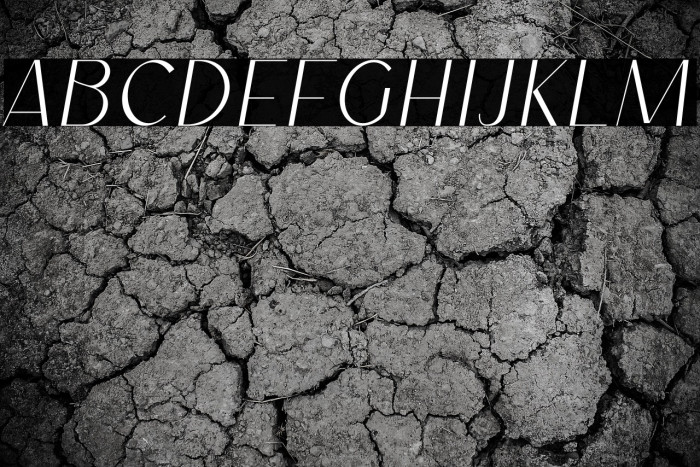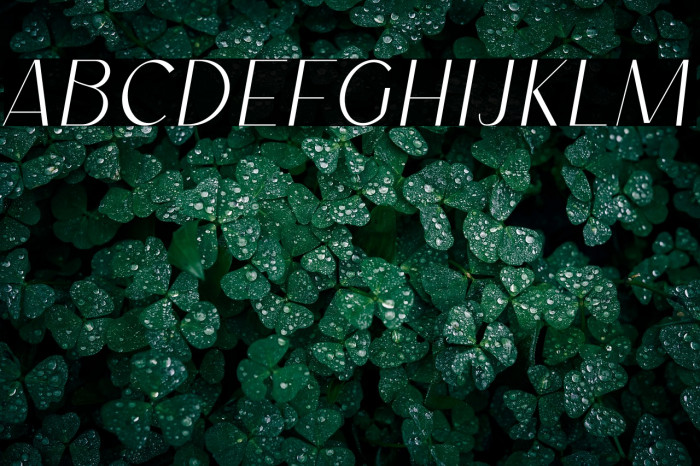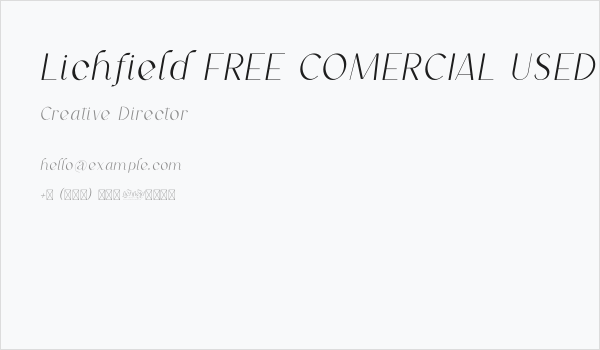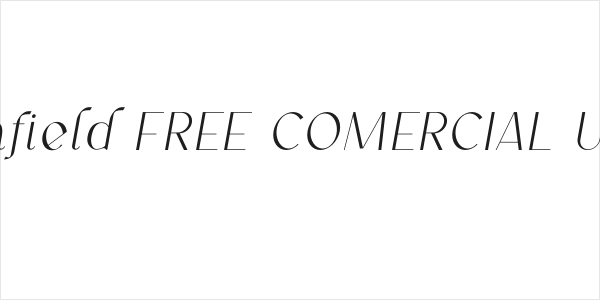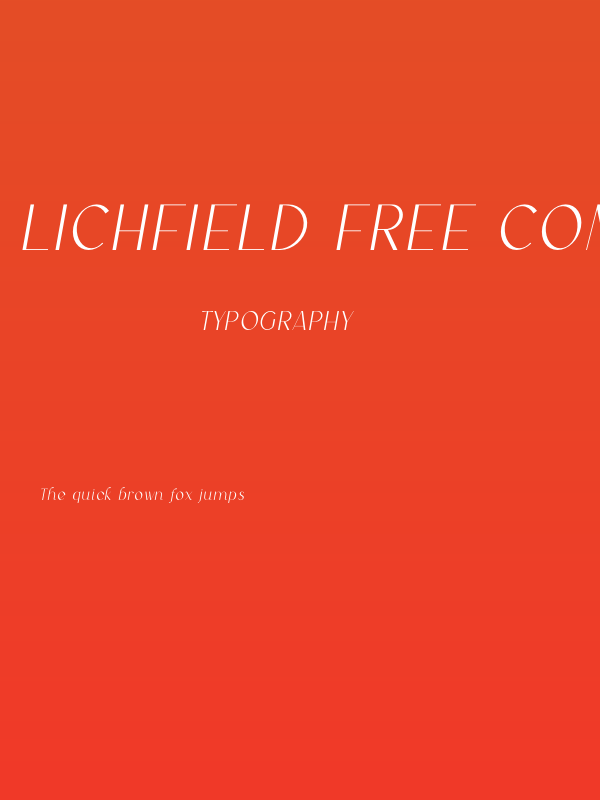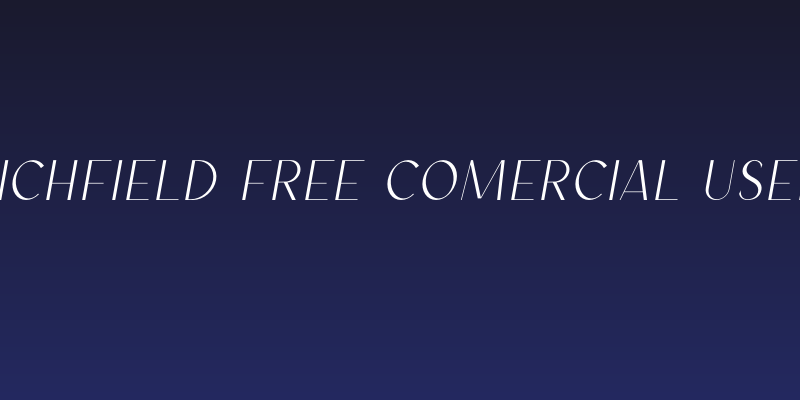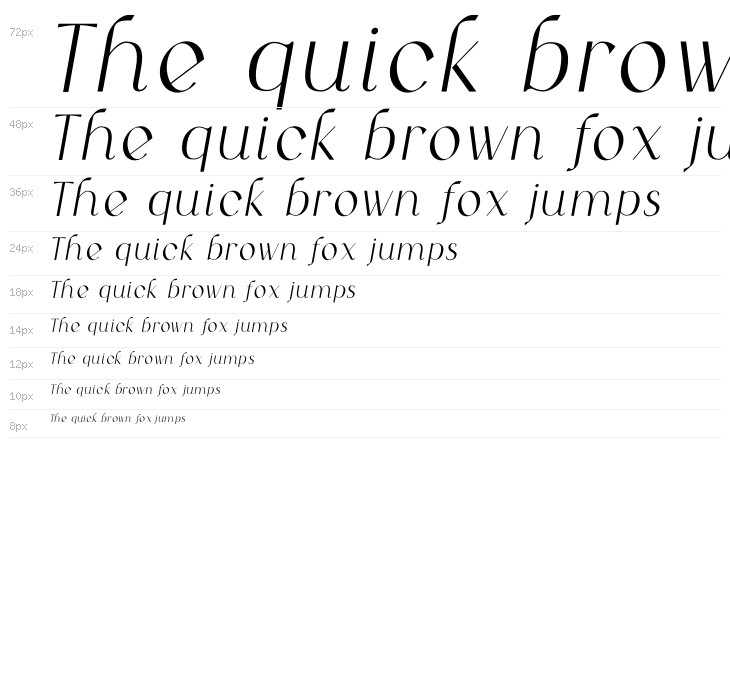
Lichfield FREE COMERCIAL USED Font
Lichfield FREE COMERCIAL USED Description
This elegant font features a refined and sophisticated design with a high contrast between thick and thin strokes. The characters are slightly condensed, giving it a sleek and modern appearance. The uppercase letters are tall and graceful, while the lowercase letters maintain a consistent flow with gentle curves. The font includes a full set of numerals and a variety of special characters, making it versatile for various design needs. Its stylish and polished look makes it suitable for high-end branding and editorial design.
| Use Case | Headlines, Logos, Editorial design |
| Proposed Projects | Ideal for luxury branding, fashion magazines, elegant invitations, and sophisticated logos. |